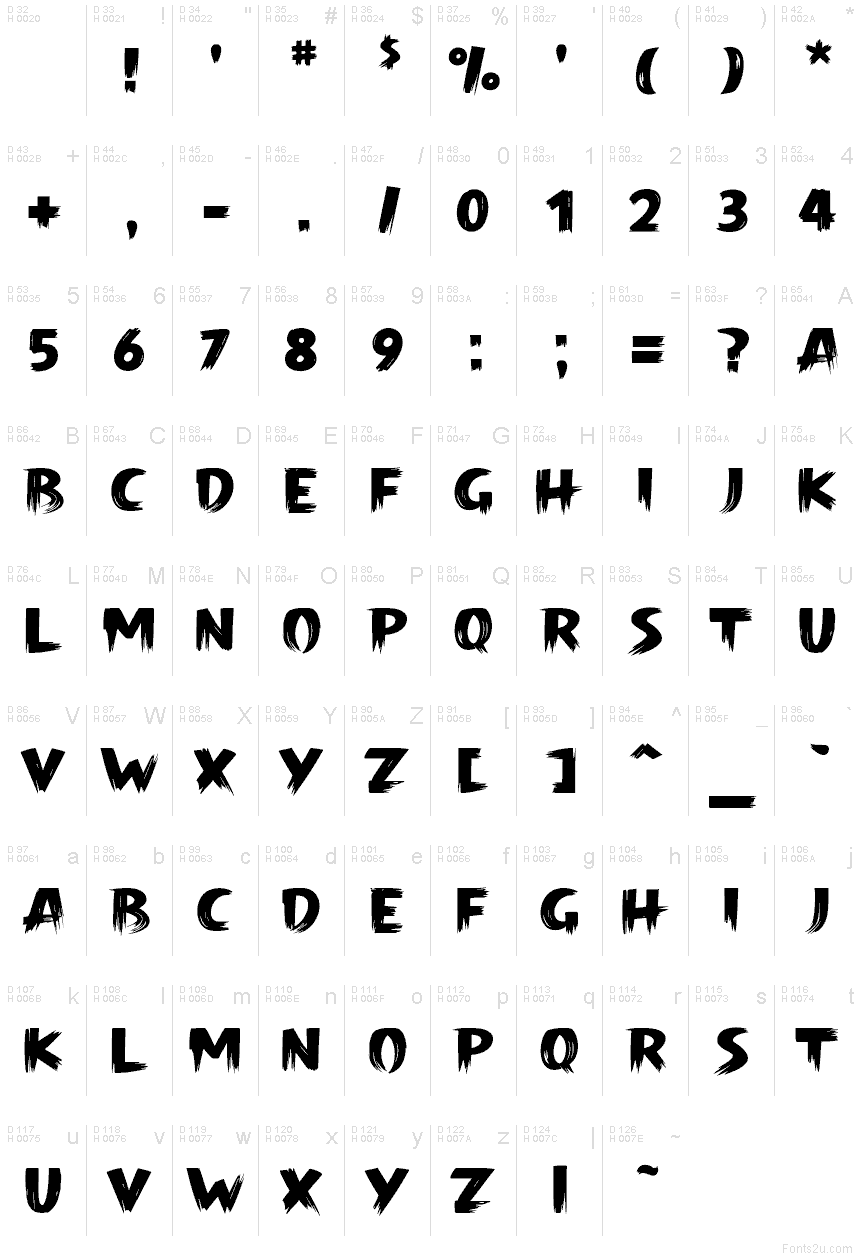
Gravityi is Optional
Gravity is Optional font by Cat.B captures the essence of brush strokes with a bold, textured appearance that feels distressed and edgy. This free brush font evokes an eerie mood with its modern horror influences, making it ideal for those who seek to bring a touch of unease to their designs.
Utilize Gravity is Optional in book covers, movie titles, posters, billboards, stickers, labels, T-shirts and other wearable apparel. It’s perfect for gaming interfaces and other children-oriented concepts and projects. The font can also be integrated into packaging boxes for shoes or luxury goods among others.